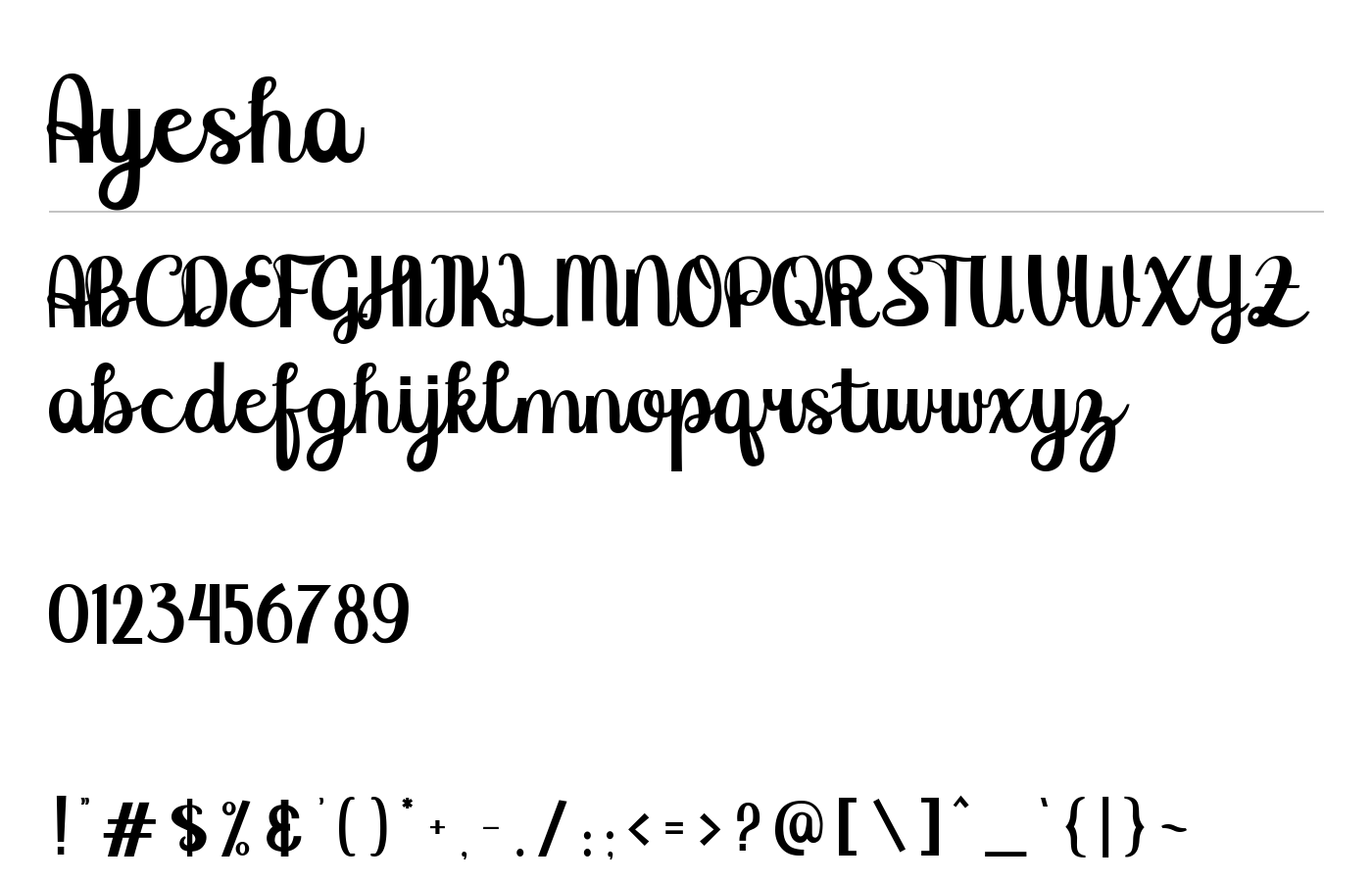
Ayesha is a playful and elegant script font with a smooth, flowing style that combines a handwritten feel with upright, moderately high x-height letterforms. Its rounded strokes and gentle contrast create a friendly yet refined appearance, making it ideal for creative branding, invitations, and expressive headlines where a touch of charm and personality is desired. This font works well in projects that need a warm, approachable vibe without losing sophistication.
Ayesha Font